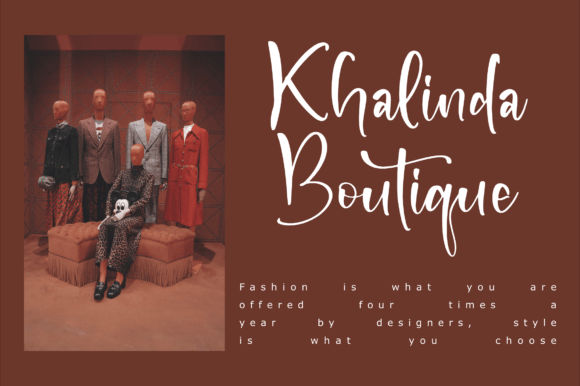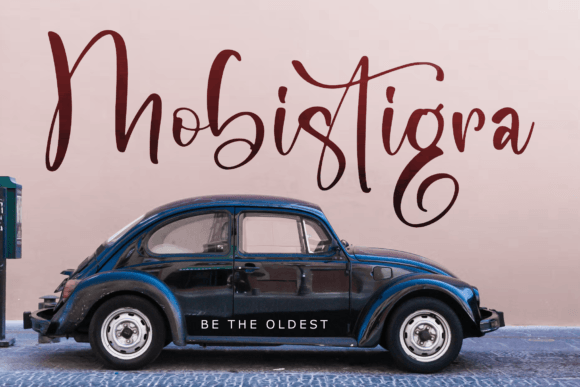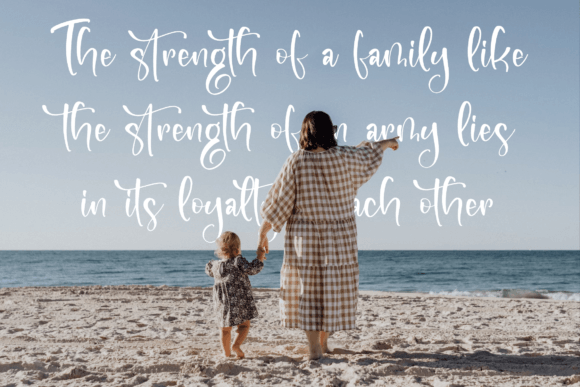
Introduction to Chystigra Font
Chystigra feels equally charming and elegant.
It looks stunning on wedding invitations, thank you cards, quotes, greeting cards, logos, business cards, and every other design which needs a handwritten touch .
Key Features of Chystigra Font